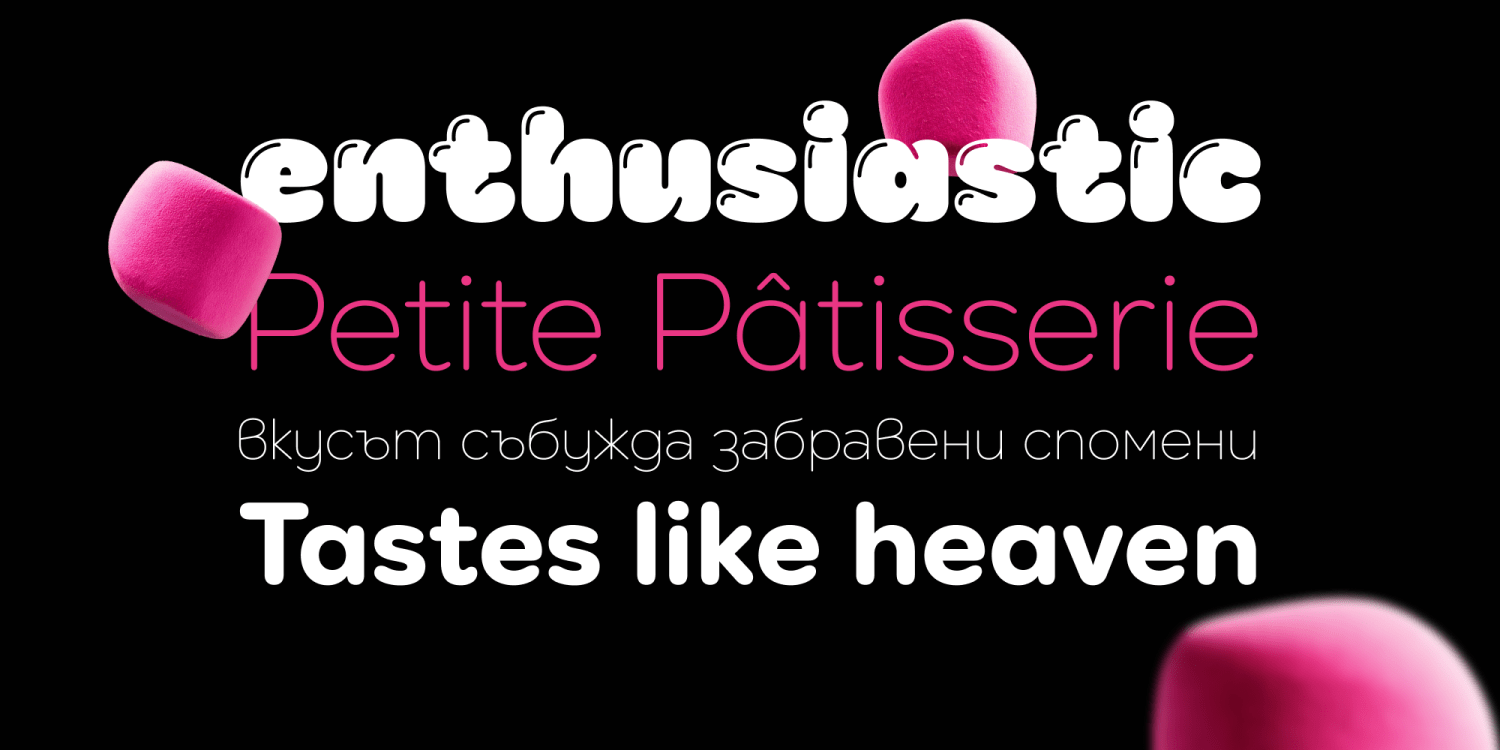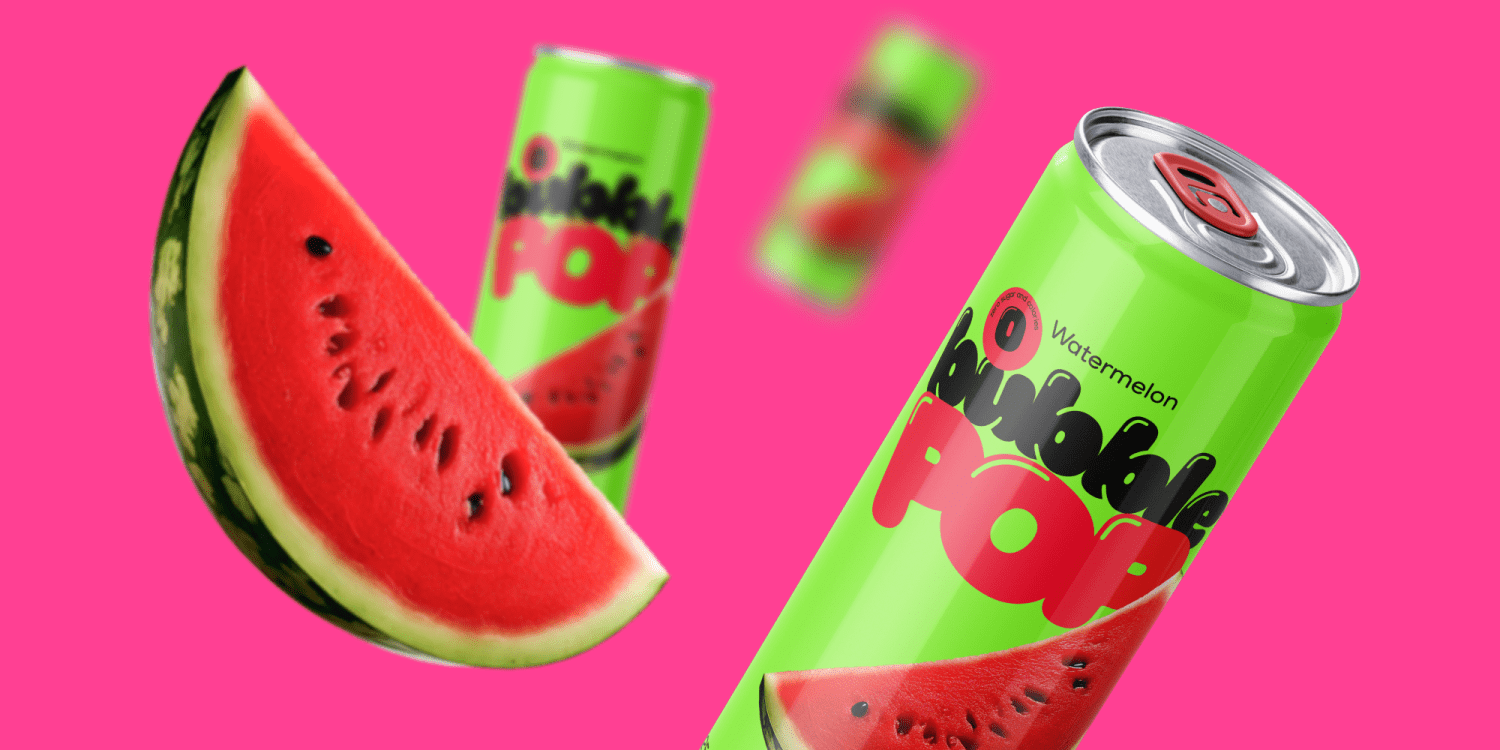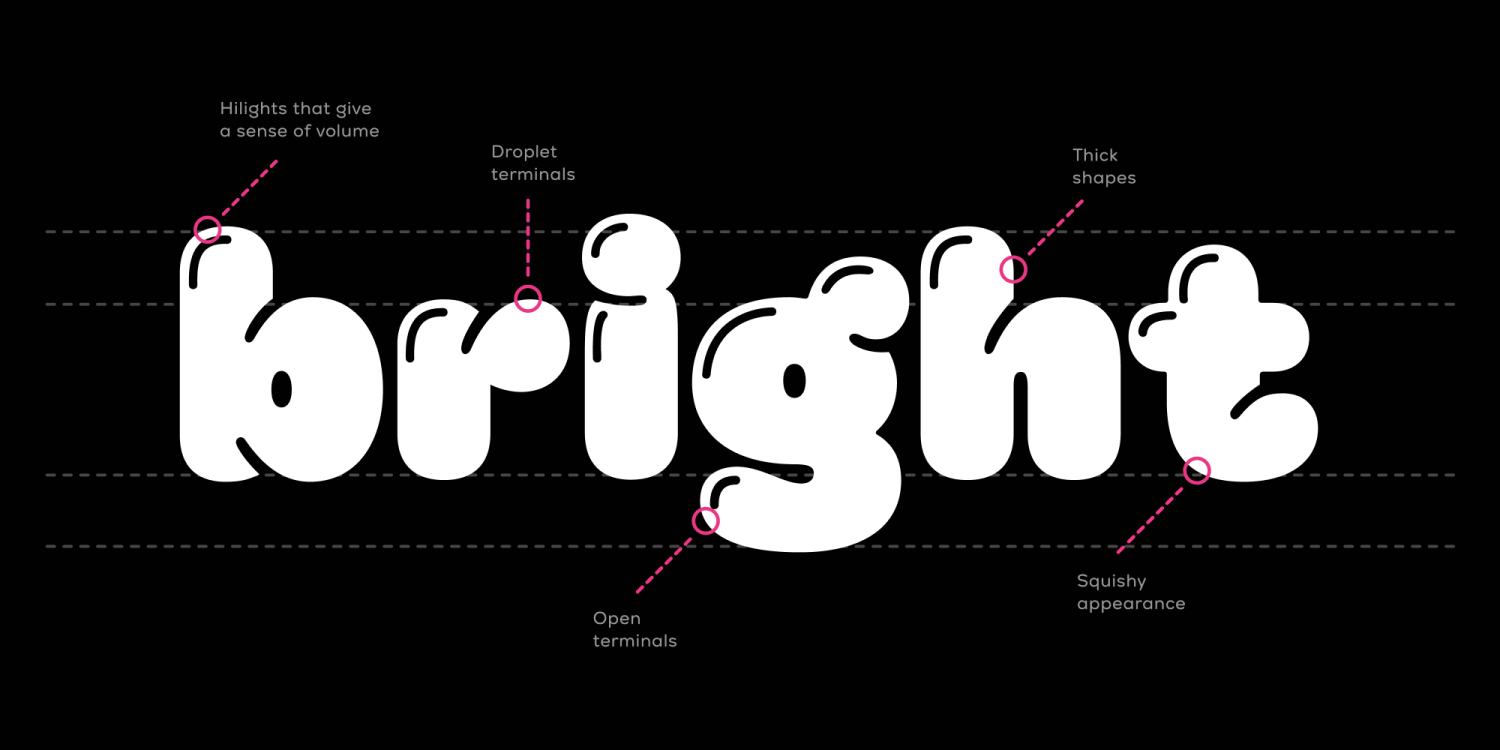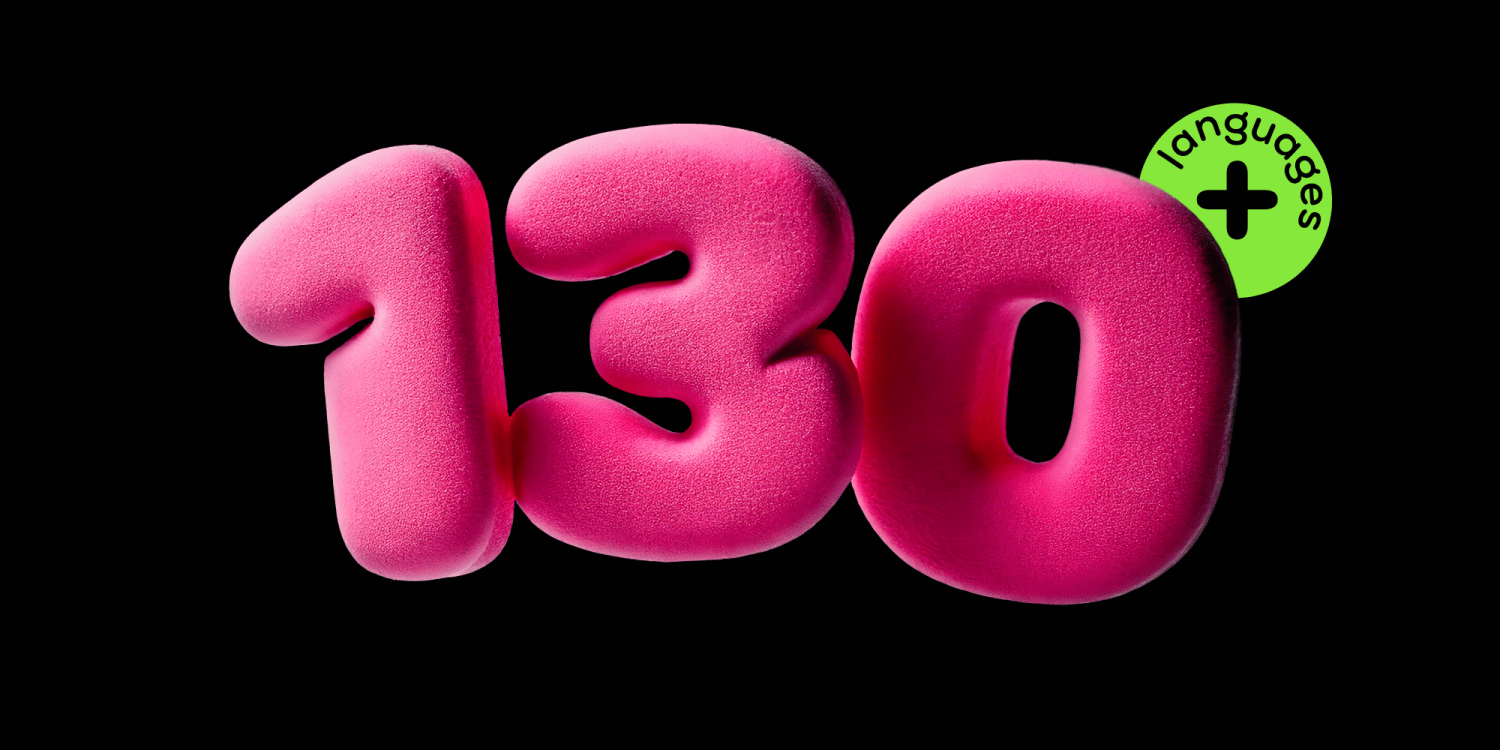
Nexa Round
We're thrilled to unveil Nexa Round – a friendlier companion to Fontfabric's renowned Nexa. Designed by the talented Ivelina Martinova, Nexa Round infuses softness into the simplicity and geometric beauty that Nexa is celebrated for.
A Thoughtful Transformation
Nexa Round emerges as a carefully crafted evolution of its predecessor, far exceeding a simple rounded adaptation. Every character has been thoughtfully redesigned to preserve the geometric precision and foundational essence of the original Nexa, while introducing a fresh softness. This intentional refinement ensures that Nexa and Nexa Round harmoniously complement each other in applications like logos, taglines, price labels, and more—making them ideal partners for cohesive branding initiatives and corporate identities.
Versatility Across Sectors
The smooth, approachable curves of Nexa Round grant it remarkable versatility, allowing it to shine independently. It's particularly well-suited for branding and design projects across a variety of sectors, such as:
- Technology and Innovation: Merging futuristic aesthetics with a human touch.
- Health and Wellness: Conveying care and approachability in medical and wellness communications.
- Food and Beverage: Adding warmth and friendliness to culinary brands.
- Education and Children's Products: Creating a playful and engaging appeal for younger audiences.
A Comprehensive Font Family
The Nexa Round family consists of 11 fonts, ranging from Thin to UltraBlack. The first nine weights match exactly with those of Nexa, providing consistent options for pairing and layering. The UltraBlack and UltraBlack Glow weights are unique additions crafted specifically for Nexa Round, offering bold choices for impactful headlines and designs.
Multilingual Support & Advanced Features
Nexa Round supports Extended Latin and Cyrillic scripts, ensuring your message resonates with a global audience. It's packed with OpenType features such as ligatures and contextual alternates, giving you the flexibility to create dynamic and engaging typography.